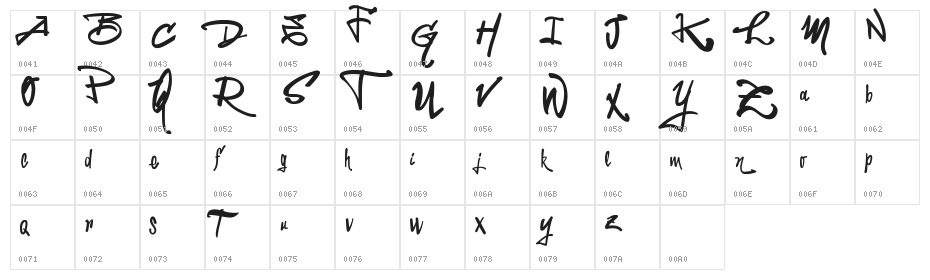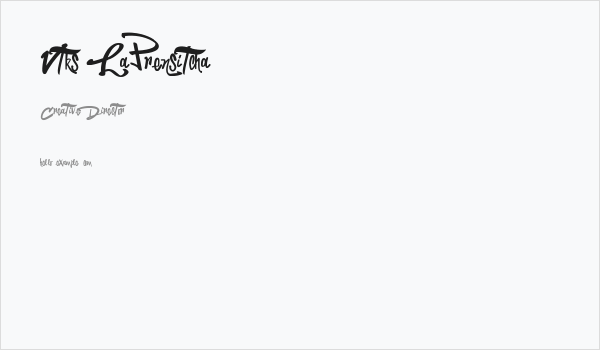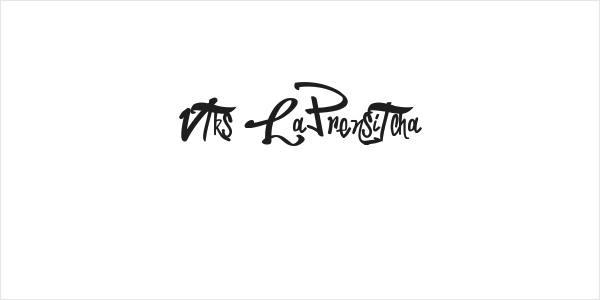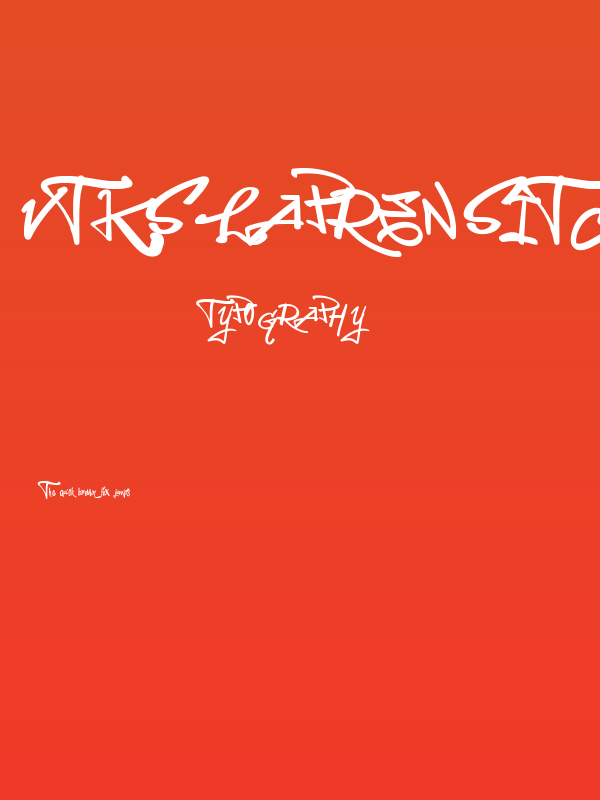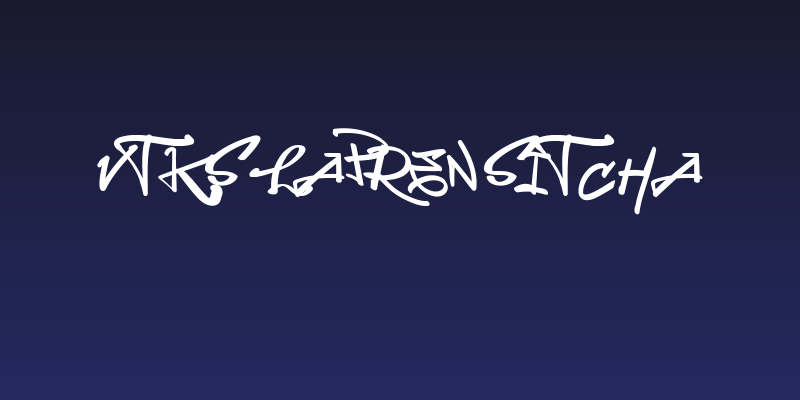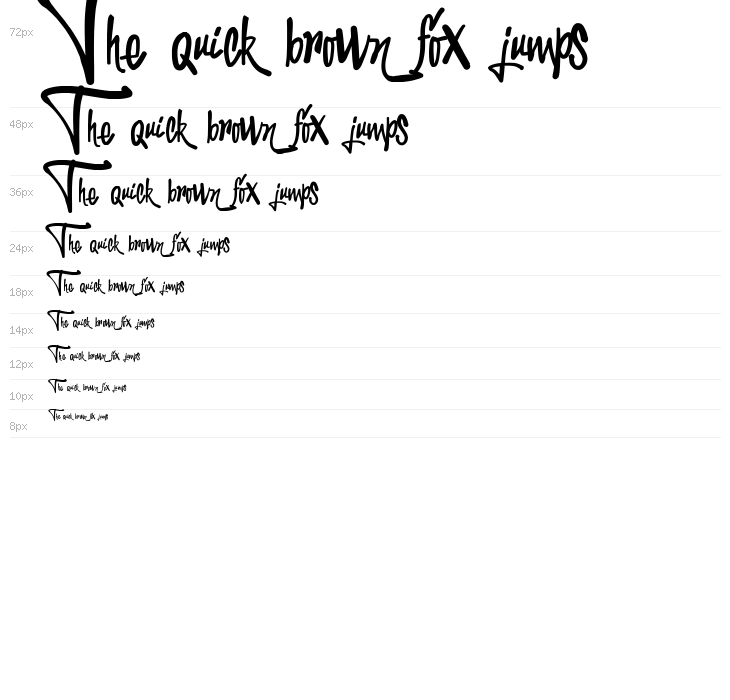
Vtks LaPrensitcha Font
Vtks LaPrensitcha Description
This font features a dynamic and expressive style with a handwritten appearance. The letters are bold and fluid, with a sense of movement and energy. The uppercase and lowercase characters have a consistent flow, with some letters extending beyond the baseline, adding to the font's unique character. The strokes are thick and vary in width, providing a high contrast that enhances readability while maintaining an artistic flair. The font's design is reminiscent of graffiti or calligraphy, making it suitable for projects that require a creative and informal touch.
| Use Case | Logos, Posters, Artistic Designs |
| Proposed Projects | Ideal for creative projects such as posters, album covers, branding, and artistic designs that require a bold statement. |